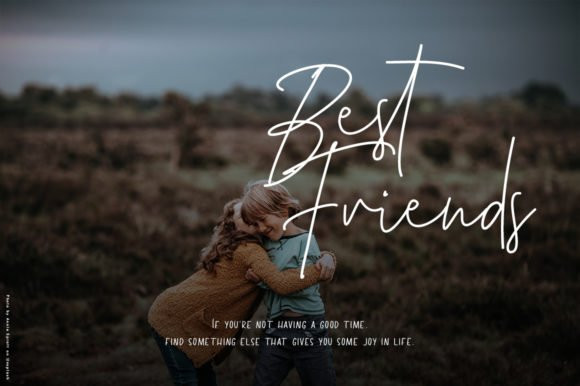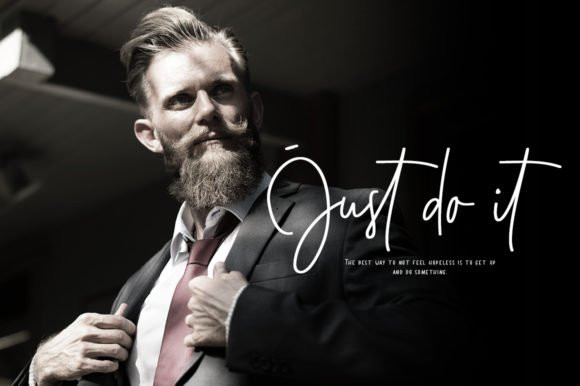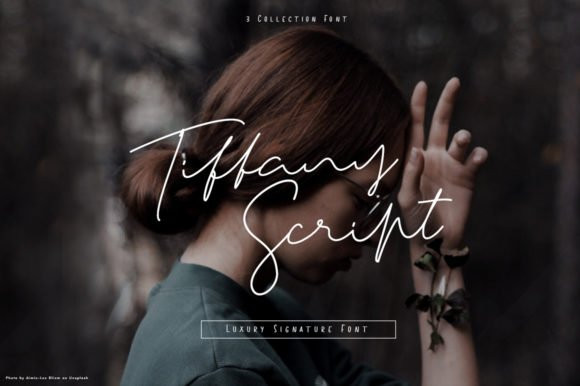
Tiffany Script Font
The Tiffany is a natural handwritten script font. It has straightforward, simple, elegant, and very beautiful characters. It’s multiple styles can be combined perfectly but are also amazing as great standalone’s!